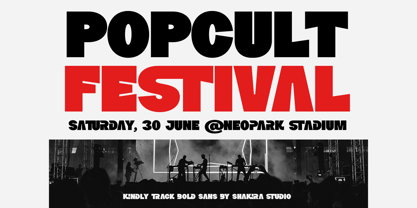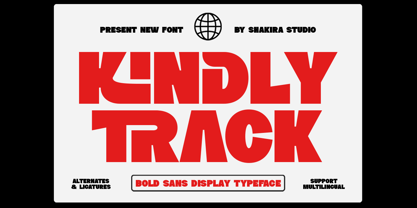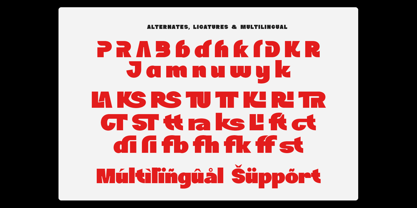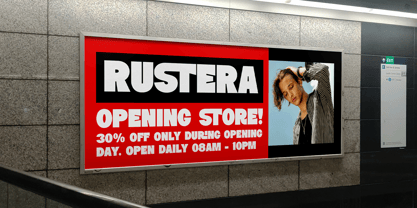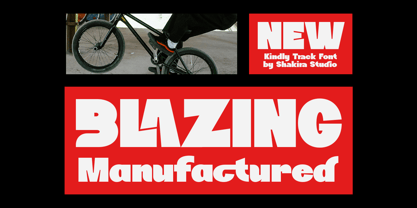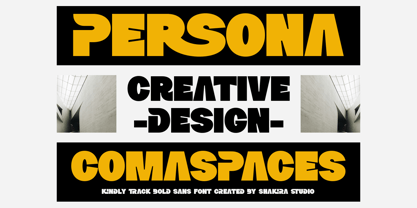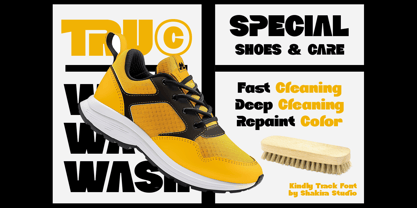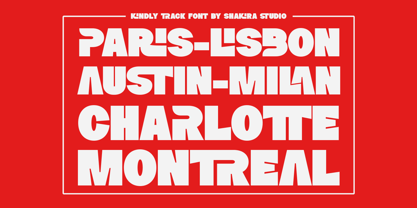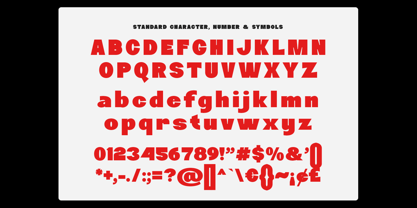
Kindly Track
by Shakira Studio
The Kindly Track Font Family was designed by Idhham Cholid Rikzano Yahya and published by Shakira Studio. Kindly Track contains 1 styles. More about this family
Kindly Track is a bold sans serif display font that combines strength and sophistication. Its thick, impactful characters create a professional and luxurious feel, making it perfect for eye-catching designs, from branding to posters, headlines, and logos. With stylish alternates and ligatures, Kindly Track adds a modern, versatile touch to any creative project.
• All Multilingual symbol
• Opentype features ( ligature, alternate )
Multilingual character supports : (Afrikaans, Albanian, Catalan, Croatian, Czech, Danish, Dutch, English, Estonian, Finnish, French, German, Hungarian, Icelandic, Italian, Lithuanian, Maltese, Norwegian, Polish, Portuguese, Slovenian, Spanish, Swedish, Turkish, Zulu)
Designers: Idhham Cholid Rikzano Yahya
Foundry: Shakira Studio